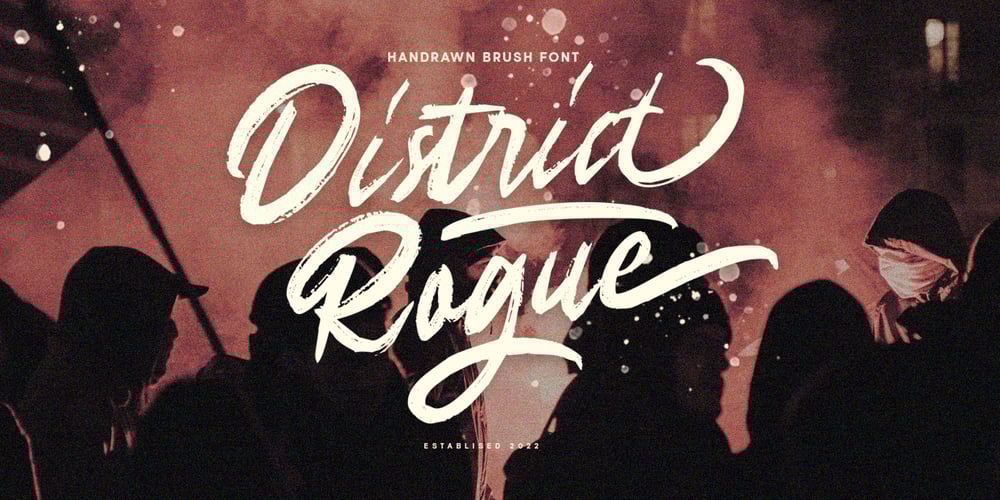
District Rogue
District Rogue font
District Rogue Font Family was designed by Hendry Juanda and published by Letterhend. District Rogue contains 1 styles and family package options. District Rogue is a rough hand drawn dry brush script which is purposely made for headline, display or logotype, and signature which need a standout appearing. This font is also suitable to be applied especially in logo, and the other various formal forms such as invitations, labels, logos, magazines, books, greeting / wedding cards, packaging, fashion, make up, stationery, novels, labels or any type of advertising purpose.Features : uppercase & lowercase numbers and punctuation multilingual PUA encoded We highly recommend using a program that supports OpenType features and Glyphs panels like many of Adobe apps and Corel Draw, so you can see and access all Glyph variations.